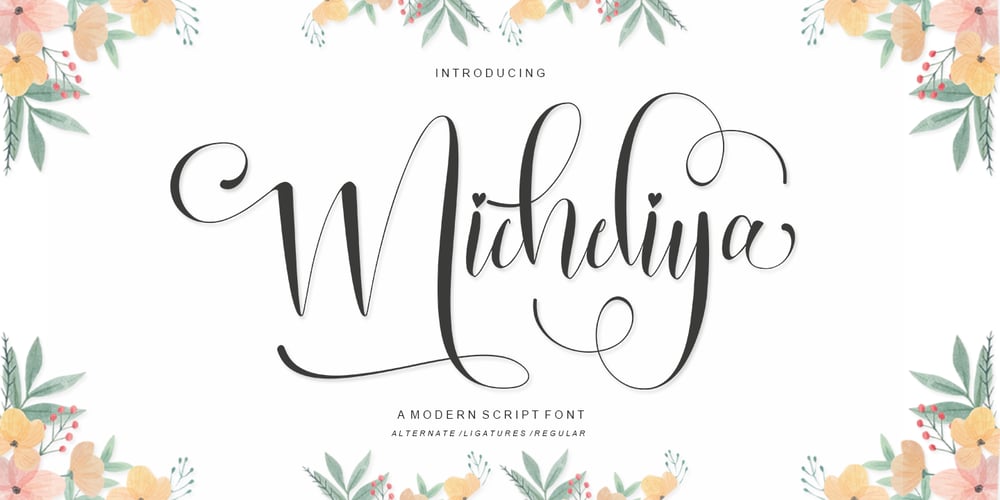
Micheliya
Micheliya font
Micheliya Font Family was designed by Ikhsan Maulana and published by IM Studio. Micheliya contains 1 styles and family package options. Micheliya has a font script that is provided with great tenderness to be presented with a variety of stunning character models.Micheliya combines a new design that features free, warm, modern features. taste.The diversity of weights provides a variety of choices that will help you find the best design colors for your project. Lighter weights are perfect for heavier body text ideal for high impact headers. Alternative styles available provide different characters that give your logo or business card a unique display.